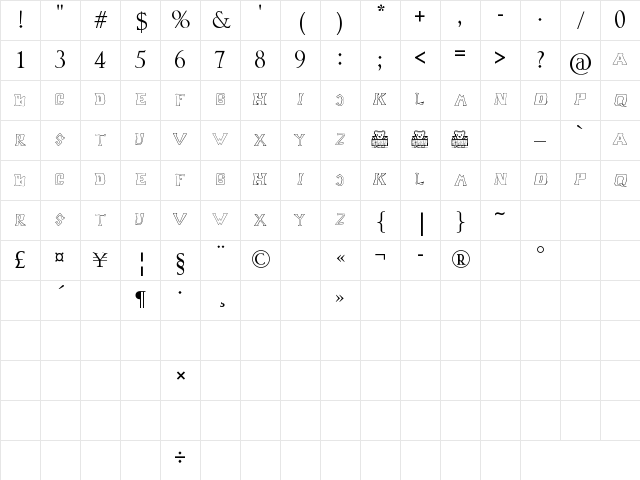
Ripai Graffiti Regular
Designer: Mr NastZz
Design Context for Ripai Graffiti
Ripai Graffiti is a composed and adaptable typeface that performs quietly and consistently across a wide range of design contexts.